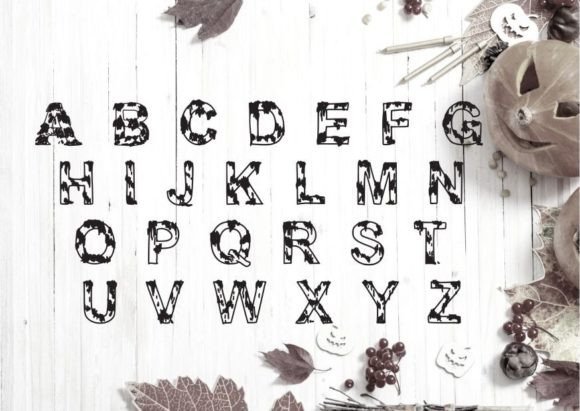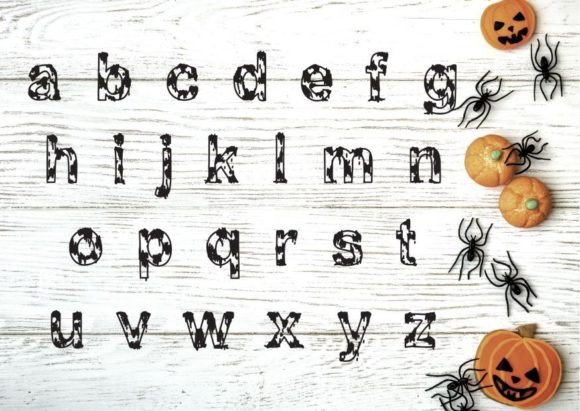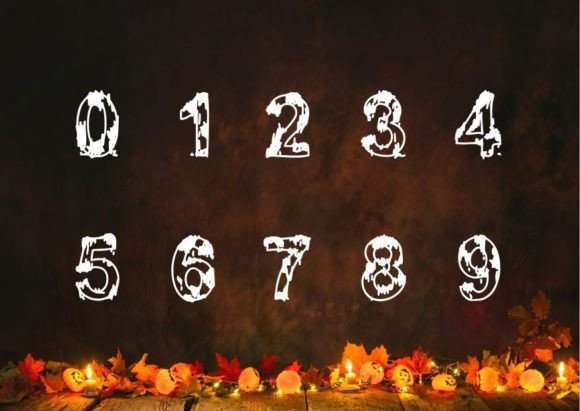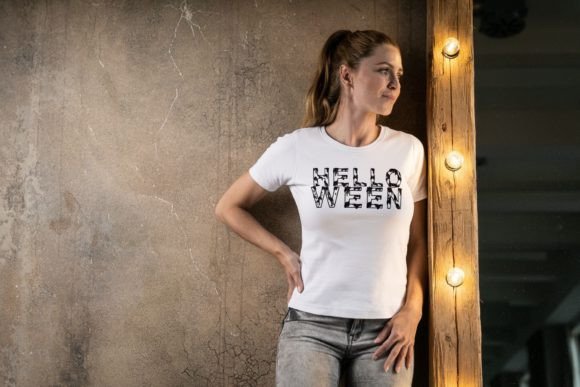
The Candle Drop Font: A Spooky yet Charming Addition to Your Halloween Designs
I’ll never forget the time I was working on a Halloween-themed project for a client, and I just couldn’t seem to find the right font to capture the spooky yet whimsical vibe I was going for. The client wanted something that would make their Halloween party invitations stand out, but I was stuck in a design rut. That’s when I stumbled upon the Candle Drop font, and it was love at first sight! ✨
An Honest Review of Candle Drop
• ✨ The hand-drawn, decorative style of Candle Drop is perfect for adding a touch of eeriness and mystery to your designs.
• ✅ The font’s unique blend of creepy and whimsical elements makes it ideal for Halloween-themed projects.
• 💡 The font’s versatility allows it to be used for a wide range of creative projects, from storybooks to social media posts.
While Candle Drop is an amazing font, there are a few things to keep in mind. 🤔
• ⚠️ The font can be a bit tricky to read at smaller sizes, so it’s best to use it for headlines or titles rather than body text.
• ⚠️ Some of the glyphs and special characters can be a bit finicky, so be prepared to do some experimenting to get the look just right.
The Backstory Behind Candle Drop
Candle Drop was designed by a talented font creator who wanted to capture the magic and mystery of the spooky season. The story goes that the designer was inspired by old-fashioned candlelit gatherings and the eerie shadows they cast on the walls. The result is a font that’s both creepy and charming, perfect for adding a touch of Halloween whimsy to your designs.
Q: Is Candle Drop only suitable for Halloween-themed projects?
A: While Candle Drop is perfect for Halloween-themed projects, its unique blend of creepy and whimsical elements makes it suitable for a wide range of creative projects, from storybooks to social media posts.
Q: Does Candle Drop come with a wide range of glyphs and special characters?
A: Yes, Candle Drop comes with a wide range of glyphs and special characters, including stylistic alternates, ligatures, and more.